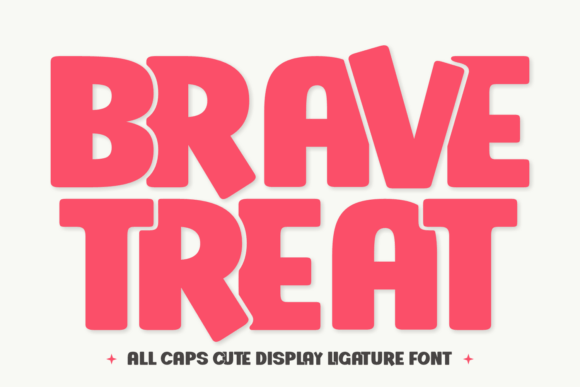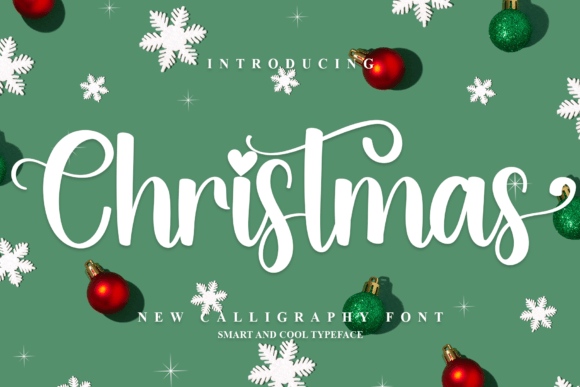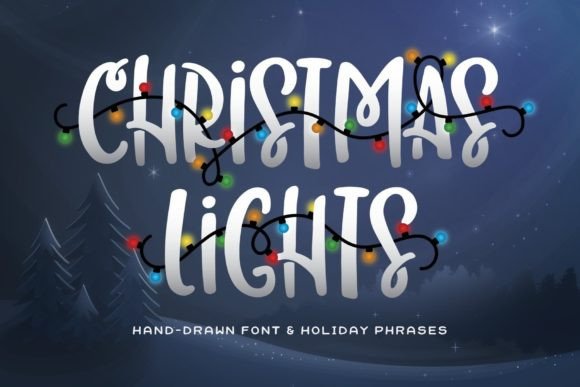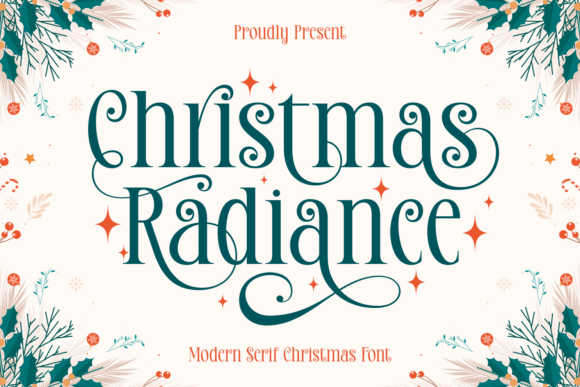
Christmas Fonts: 45 Best Bold & Festive Display Picks (2026)
Christmas fonts do a lot of the heavy lifting on a poster, gift tag, or storefront sign before anyone reads the actual words. This roundup covers 45 bold, festive Christmas fonts built for headlines and display use, from dripping candy-cane styles to sturdy varsity-inspired lettering, so you have a strong option no matter how loud your holiday design needs to be.
Quick Picks
| Best Overall | This Christmas – a versatile bold display pick for headlines |
| Boldest | Brave Treat – a strong, punchy statement font |
| Best for Signage | Dancing Christmas – playful movement that still reads clearly at a distance |
Picking a Bold Christmas Font for Display Use
Bold Christmas fonts need to survive being seen from a distance, whether that’s a shop window, a party banner, or a thumbnail on a busy Pinterest feed. Look for thick strokes and generous letter spacing, both hold up better than delicate detail once a design gets scaled down or printed large. Pair a bold Christmas font with a plain sans serif for the fine print, and save the heaviest, most decorative styles for short headlines rather than full sentences.
45 Christmas Fonts
1. This Christmas
Best for: Holiday Decor
This Christmas font is the perfect blend of festive charm and modern flair.
2. Brave Treat
Best for: Holiday Decor
Discover the enchanting charm of Brave Treat Fonts – a delightful typography masterpiece that marries daring boldness with an inviting playfulness.
3. Dancing Christmas
Best for: Holiday Decor
Introducing “Dancing Christmas” – an elegant handwritten font that captures the festive spirit with grace.
4. Spokyline Demo
Best for: Holiday Decor
Spokyline Demo typeface is a bold decorative display font that captures the magic and mystery of Halloween with its playful yet spooky vibe.
5. Christmas Lights
Best for: Holiday Decor
Christmas Lights is a bold, all-caps font with tons of character. Included in the pack are holiday words decorated with stringed lights.
6. Holidays Christmas
Best for: Holiday Decor
Holidays Christmas is a festive and incredibly classy display font. It is ideal for any of your winter break creations so add it to your designs and bring them to life!
7. Christmas
Best for: Holiday Decor
Christmas Font is a festive and merry typeface that captures the spirit of the holiday season.
8. Christmas Radiance
Best for: Holiday Decor
Light up your holiday designs with Christmas Radiance, a modern serif Christmas font crafted to bring elegance, charm, and festive warmth to every project.
9. Welcome Christmas
Best for: Holiday Decor
Welcome Christmas is a joyful and festive display font. It matches each of your holiday creations so add this font to your designs and make them come alive!
10. Grinched 2.0
Best for: Holiday Decor
The perfect Christmas font.The Grinched 2.0 comes with:European AccentsLigaturesCyrillic CharactersGreek Characters
11. Halloween
Best for: Holiday Decor
The Halloween Font is a captivating and spooky display font designed to perfectly encapsulate the spirit of Halloween.
12. Halloween Witchparty
Best for: Holiday Decor
Immerse yourself in the enchanting mystique of Halloween Witchparty, a captivating font duo.
13. Holiday Christmas
Best for: Holiday Decor
Introducing: Holiday Christmas, an uppercase display font that encapsulates the spirit, warmth, and enchantment of the festive season.
14. Amour Christmas
Best for: Holiday Decor
Amour Christmas is a festive and elegant display serif font designed to add joyful charm to your holiday creations.
15. Brittany Signature
Best for: Holiday Decor
Brittany Signature is a festive and merry typeface that captures the spirit of the holiday season.
16. Jolly Christmas
Best for: Holiday Decor
Immerse yourself in the enchanting allure of this artisan-crafted display font, vibrating with warmth and character.
17. Valentine Beach
Best for: Holiday Decor
Valentine Beach is a festive and merry typeface that captures the spirit of the holiday season.
18. Witch Chunky
Best for: Holiday Decor
Witch Chunky is all caps serif font with thick character. This font is casual and bouncy, that will radiate freedom, festive, and joyful vibes.
19. Twinkle Magic
Best for: Holiday Decor
Introducing Twinkle Magic – a delightful, bold and enchanting display font that encapsulates the merry heart of the festive season and beyond.
20. Christmas Font Bundle
Best for: Holiday Decor
21. Christmas Swash
Best for: Holiday Decor
Infuse your festive designs with warmth, luxury, and festive elegance using Christmas Swash, an elegant holiday display typeface!
Can I use a bold Christmas font for a whole paragraph of text?
It’s not recommended. Bold display fonts are built for short headlines and titles, pair them with a plain, readable font for body copy and details.